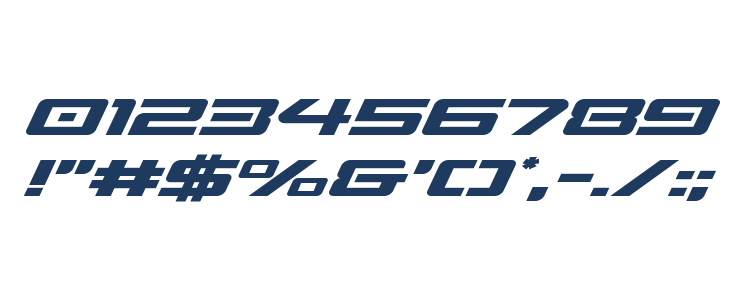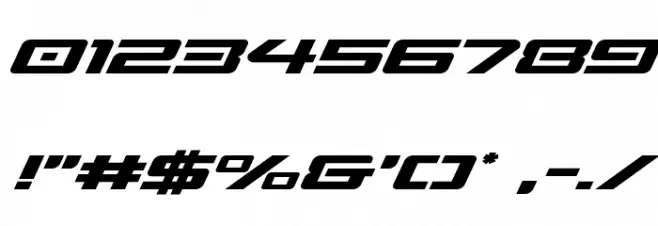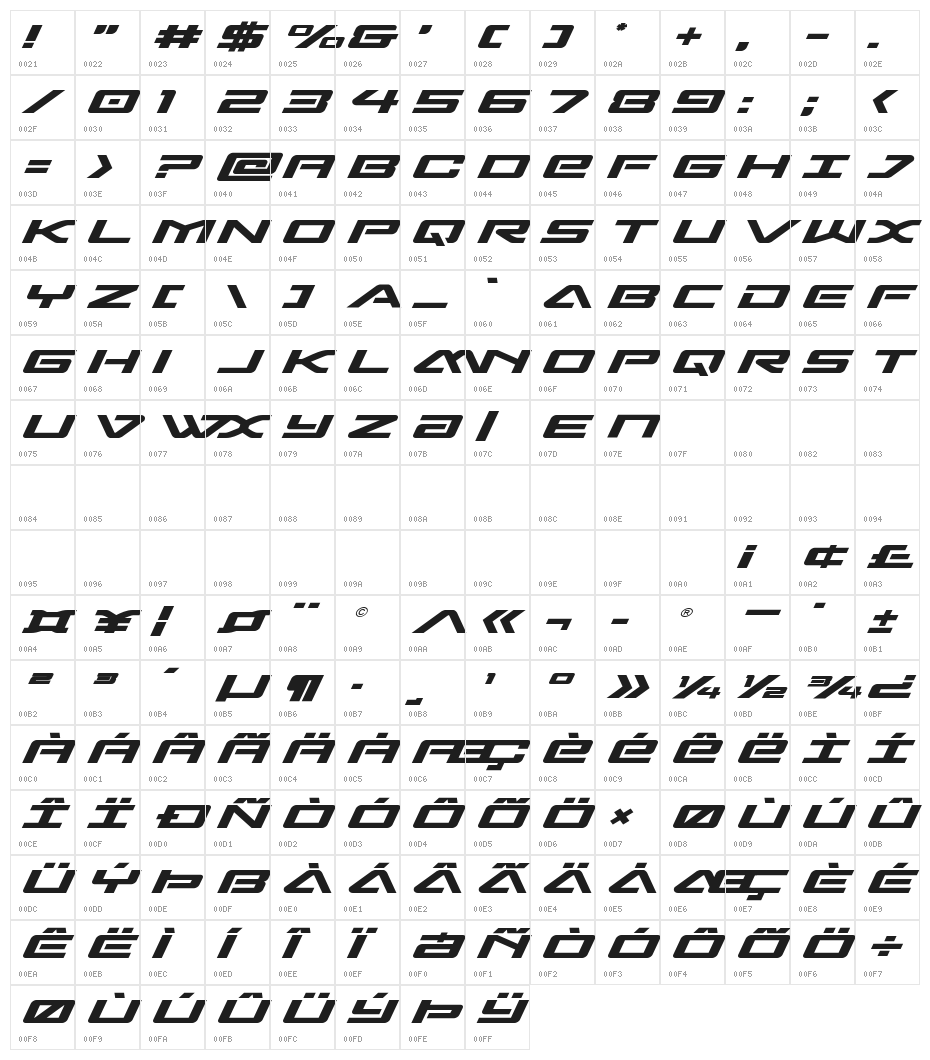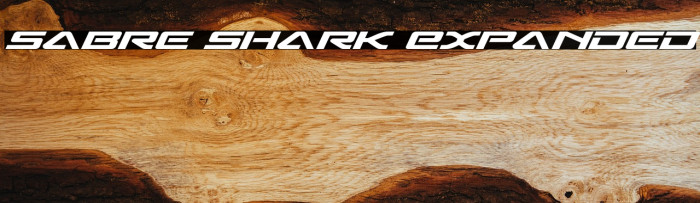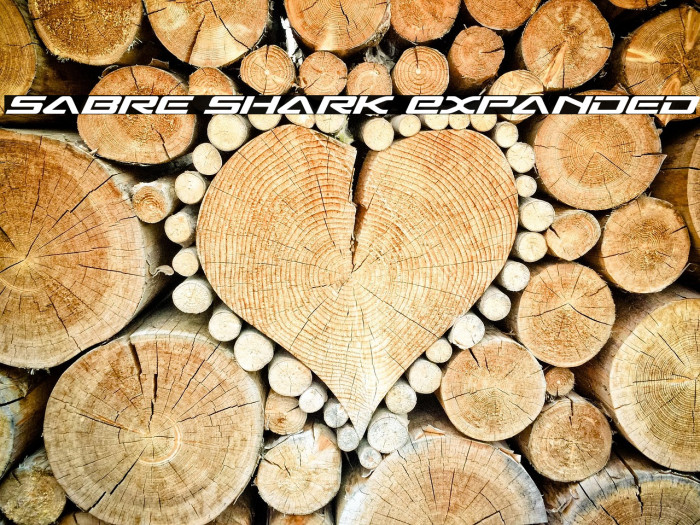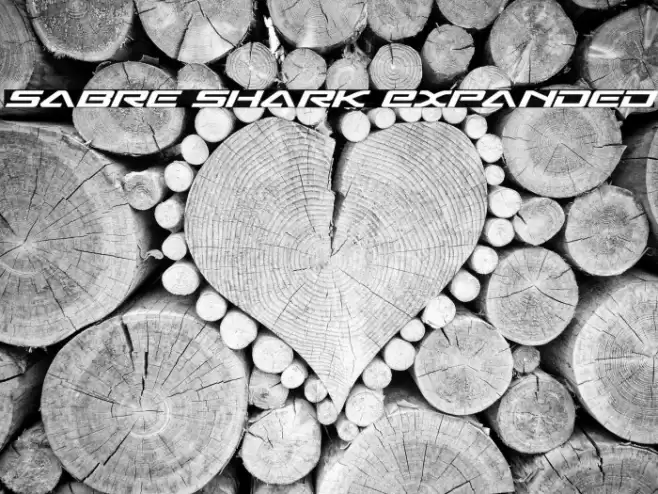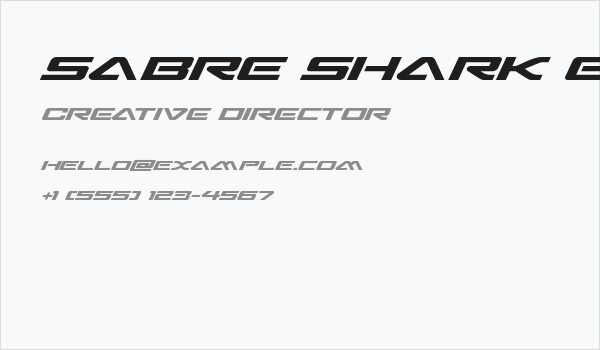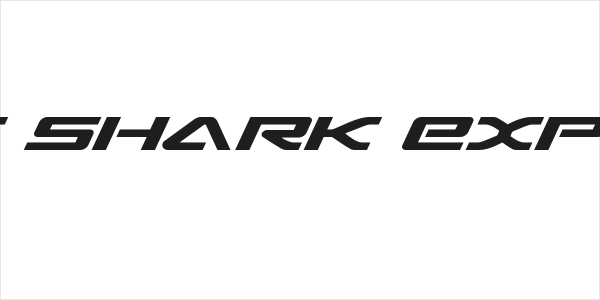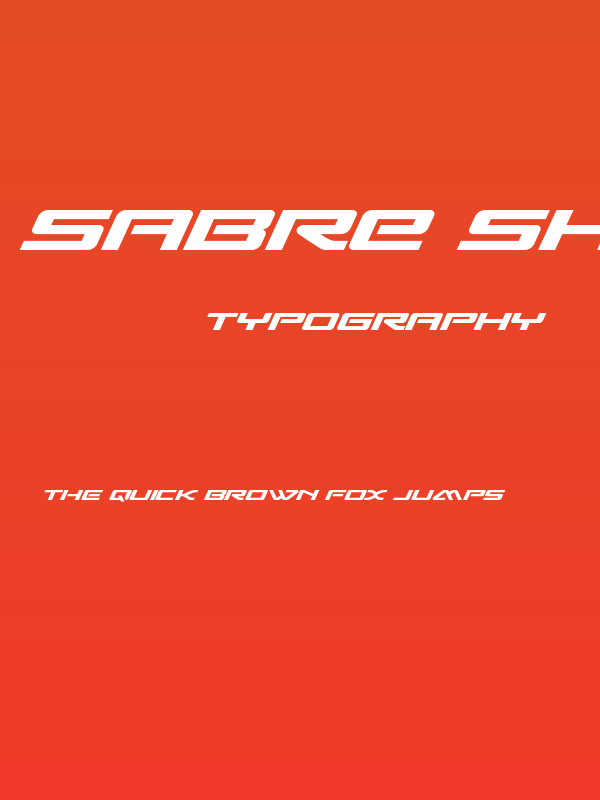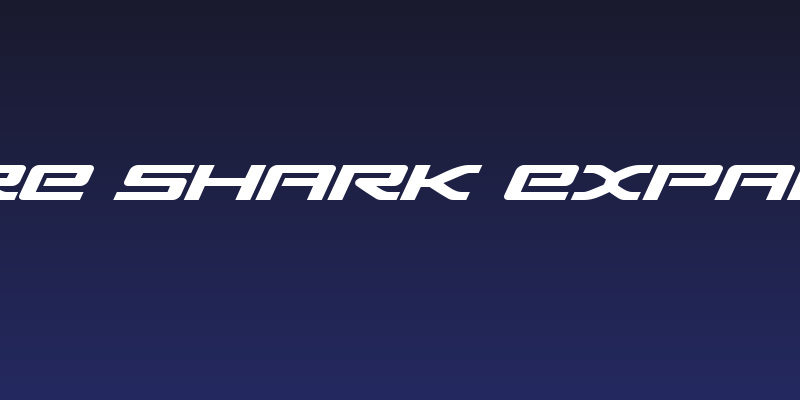
Sabre Shark Expanded Font
Sabre Shark Expanded Description
This font features a futuristic and dynamic design, characterized by sharp angles and a sleek, aerodynamic appearance. The letters are bold and slightly italicized, giving a sense of motion and speed. The expanded width of the characters enhances its modern and edgy look, making it stand out prominently. The font maintains a consistent stroke thickness, providing a uniform and cohesive appearance across all characters. Its unique style is ideal for projects that require a bold and impactful visual statement.